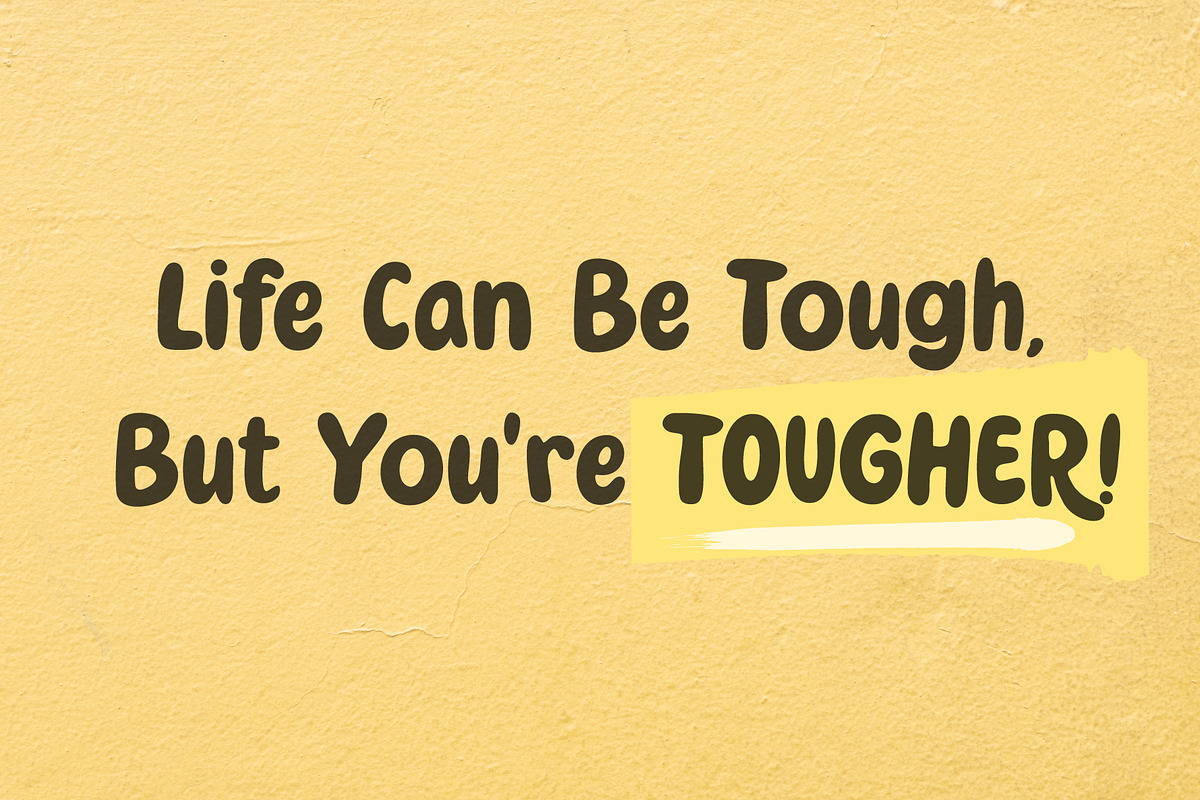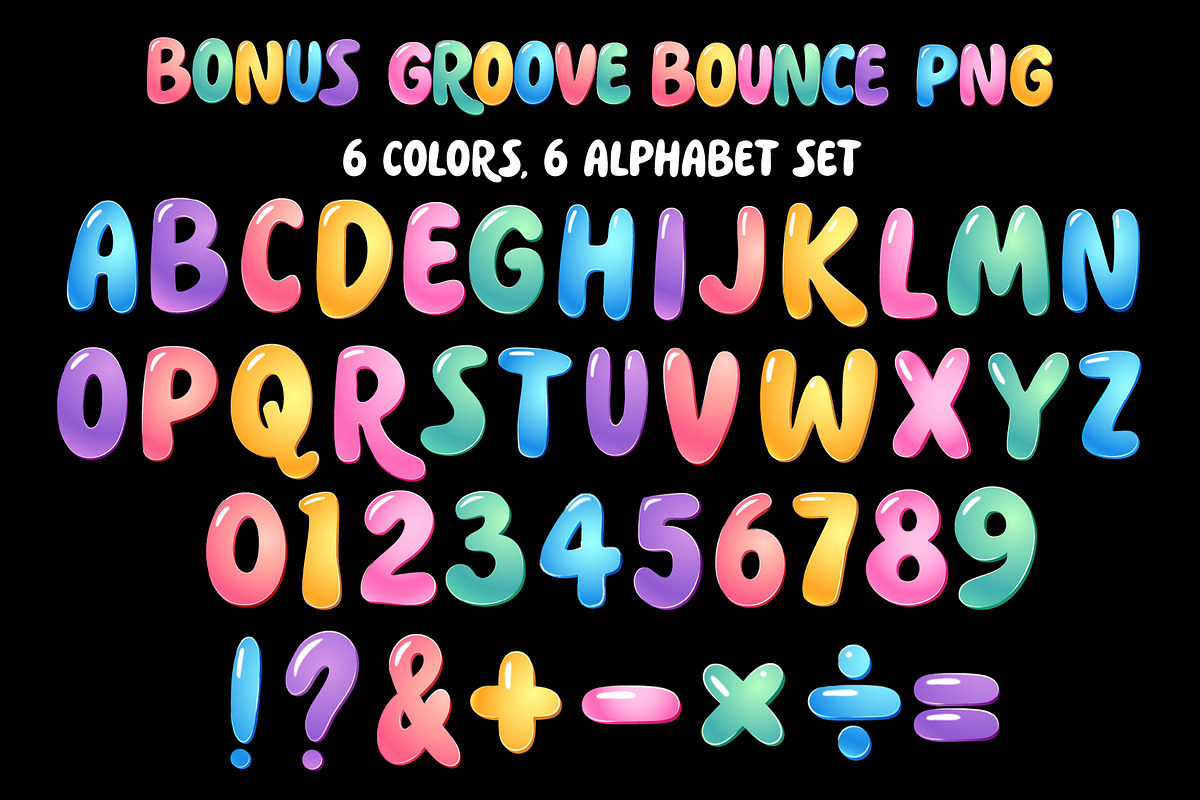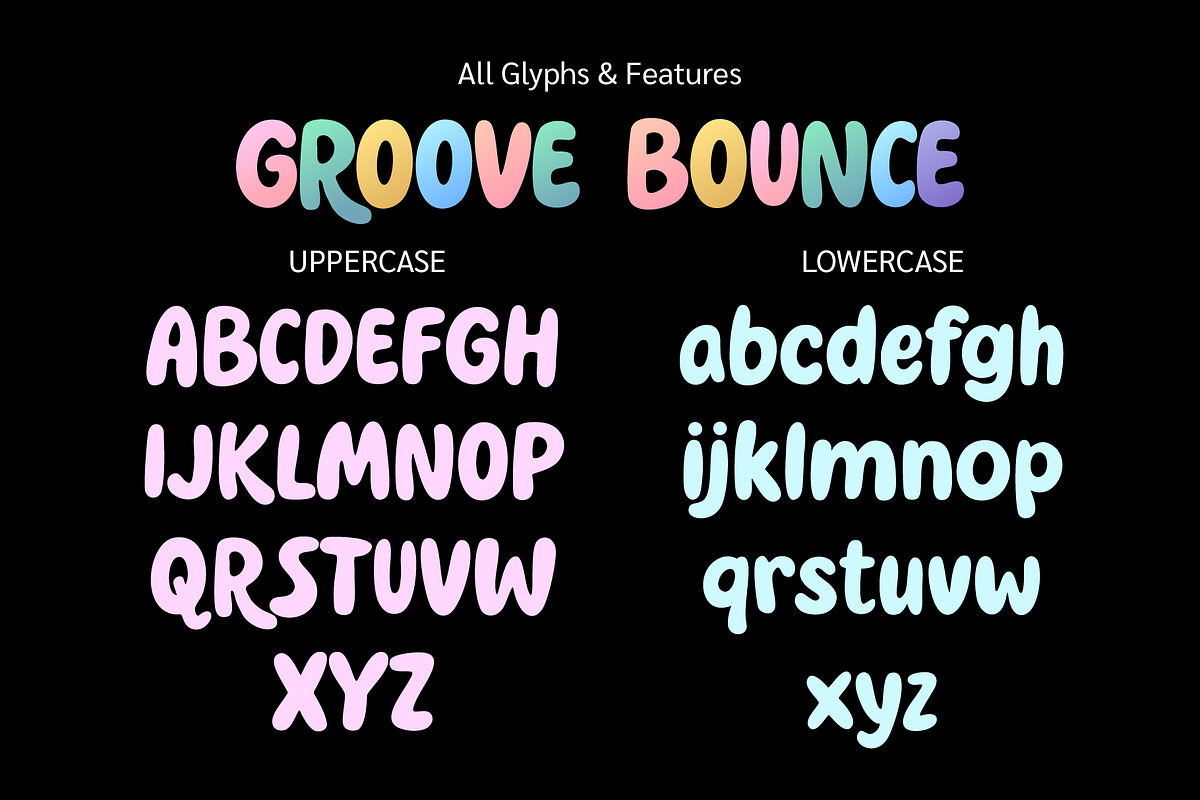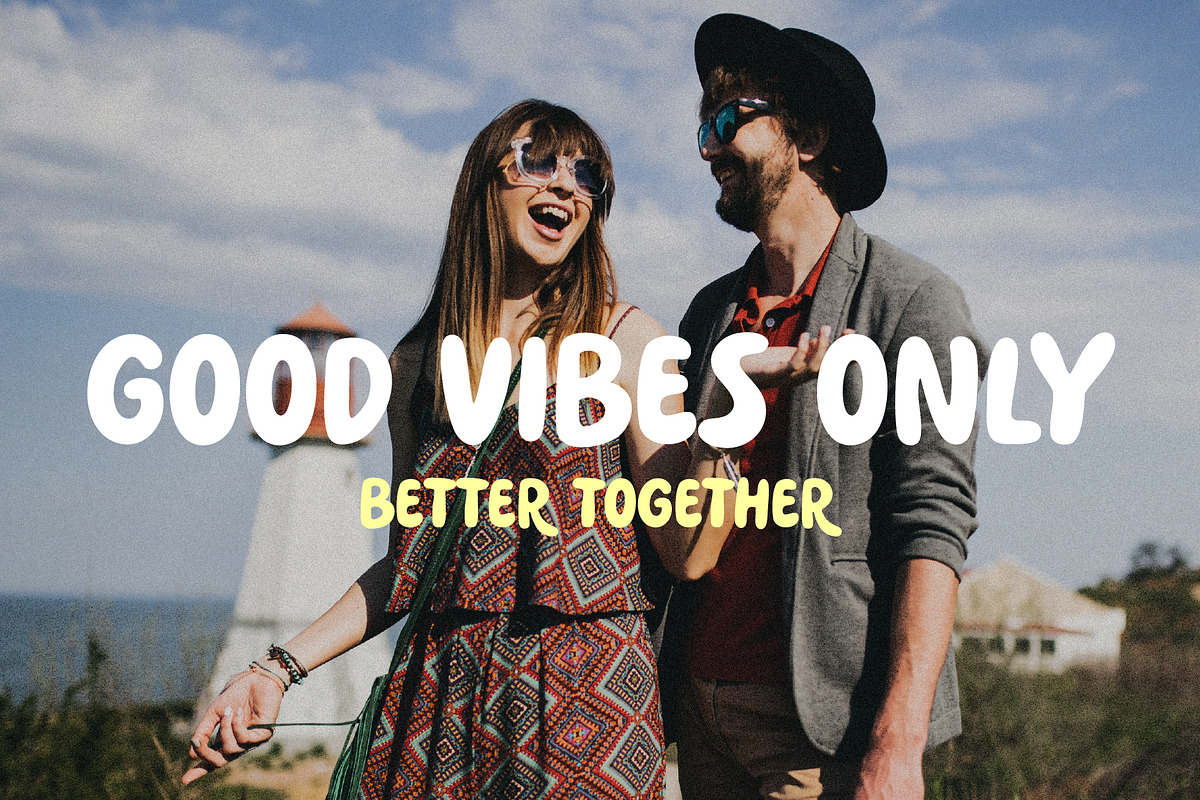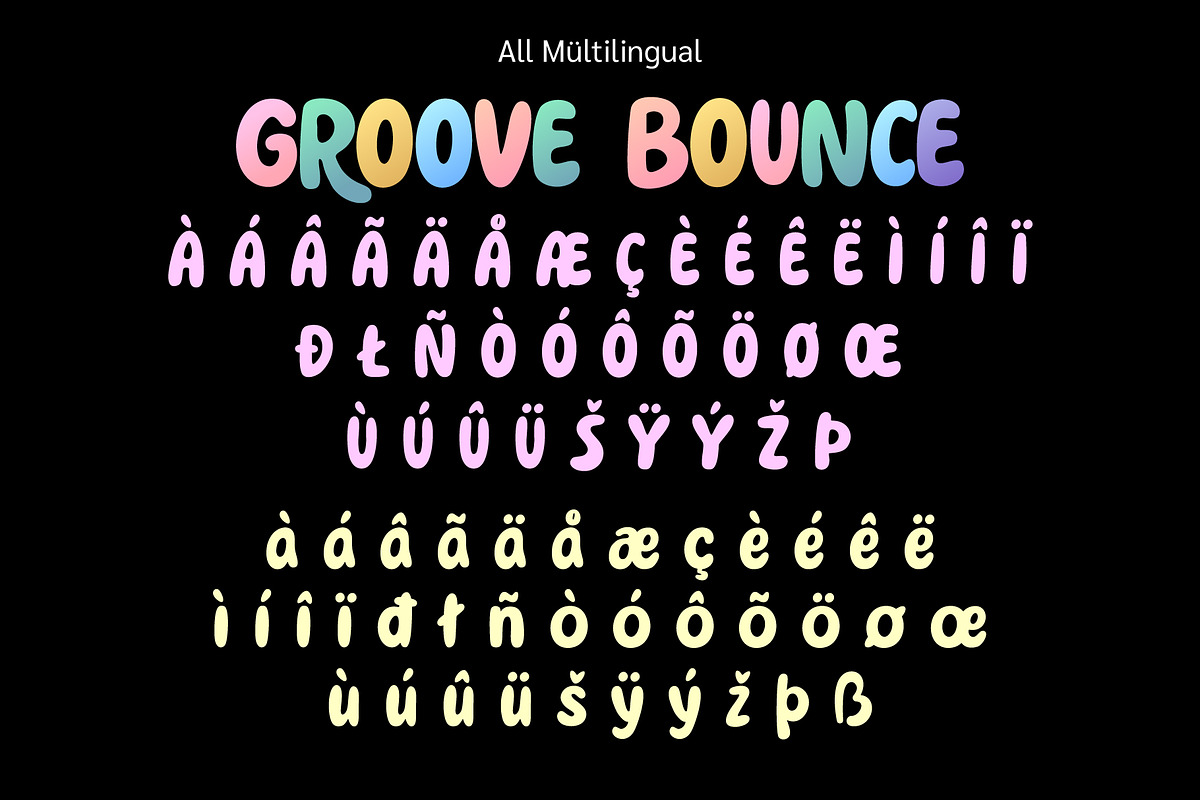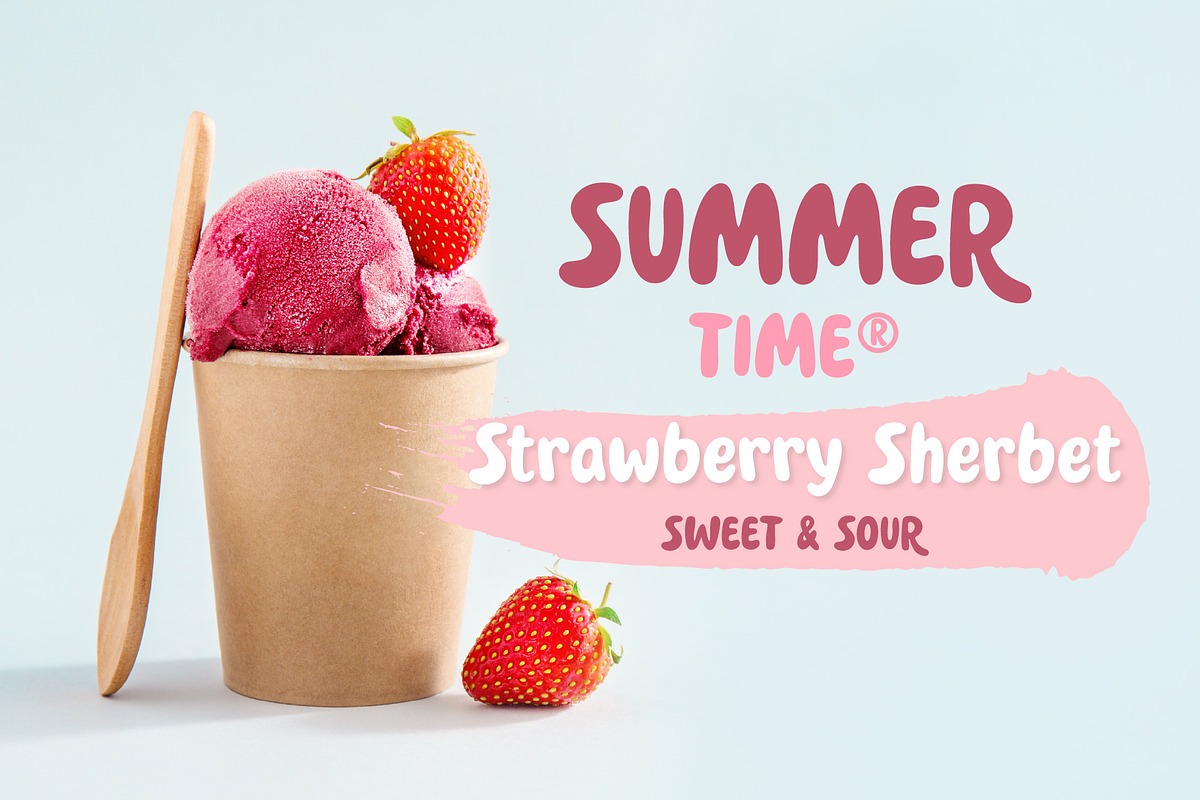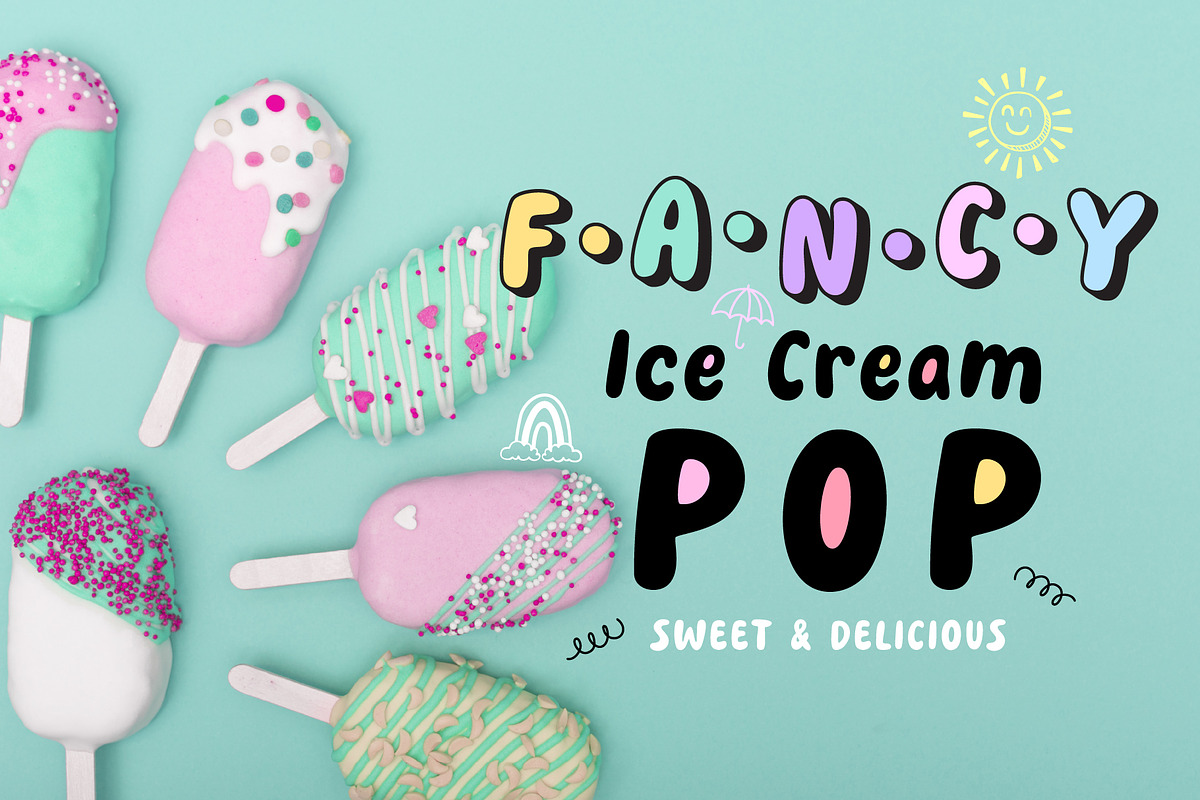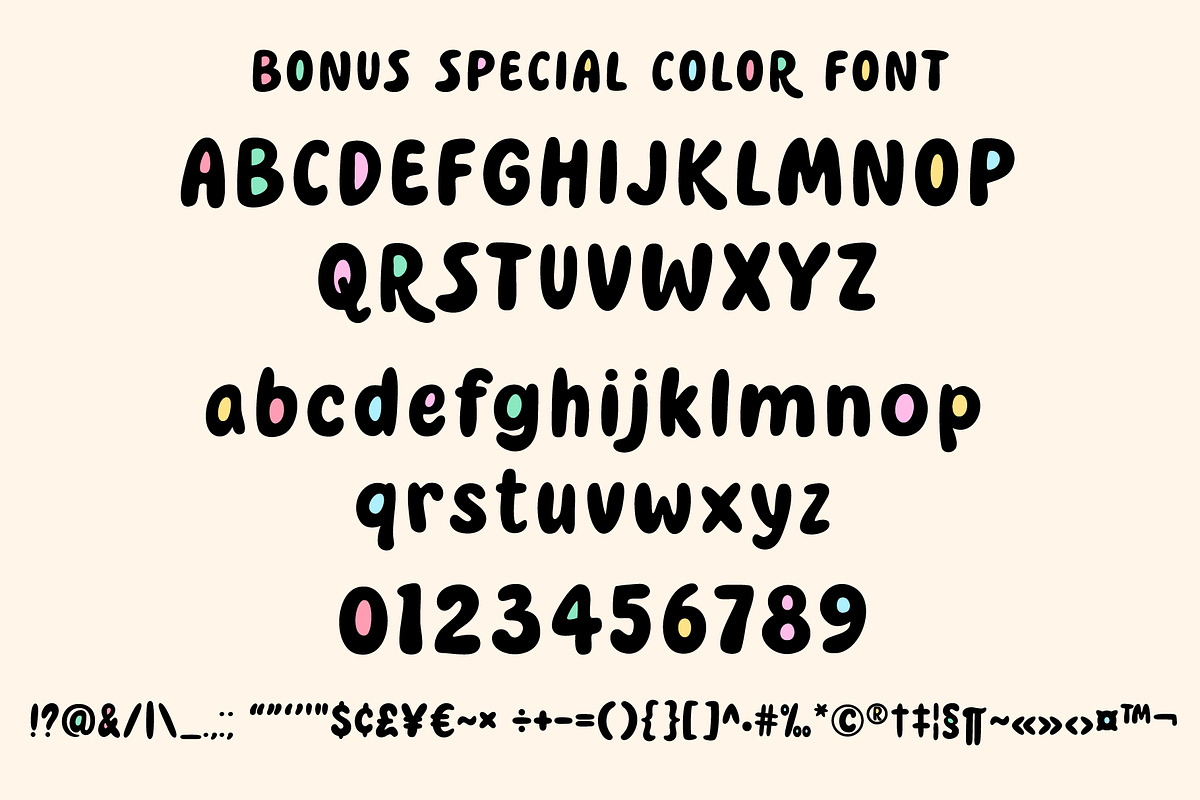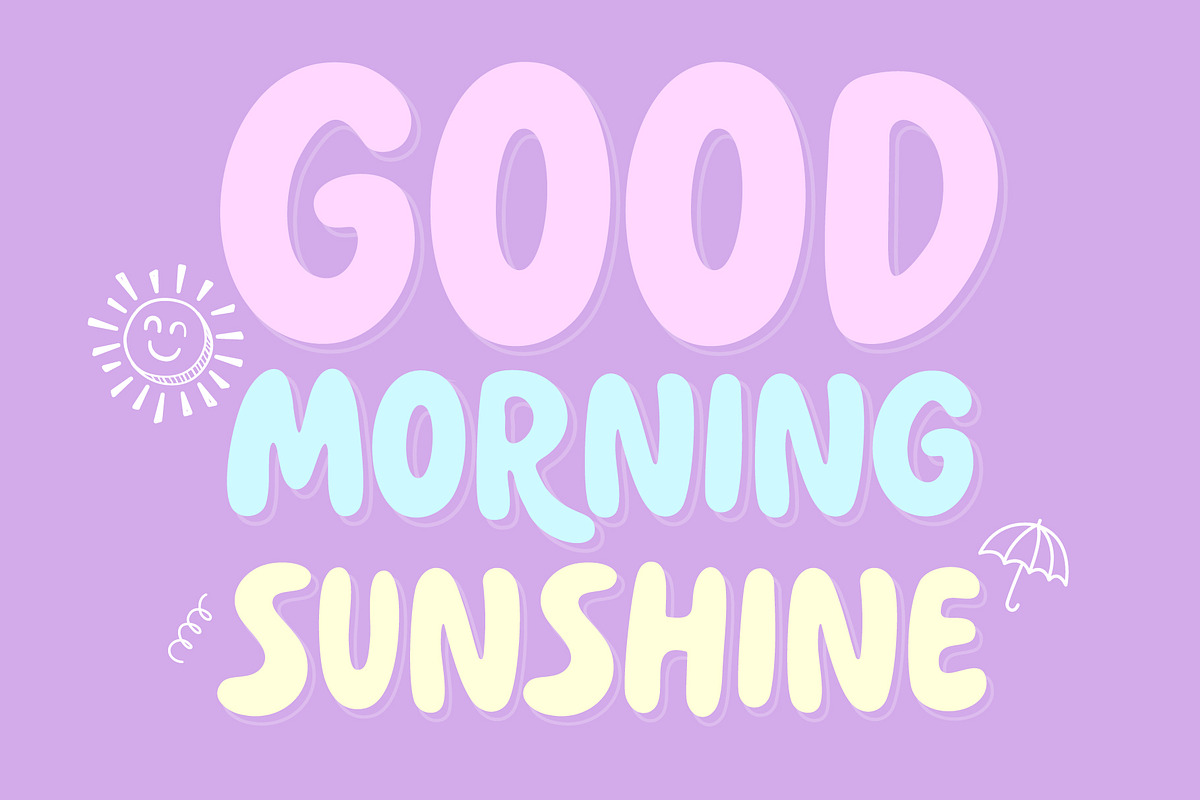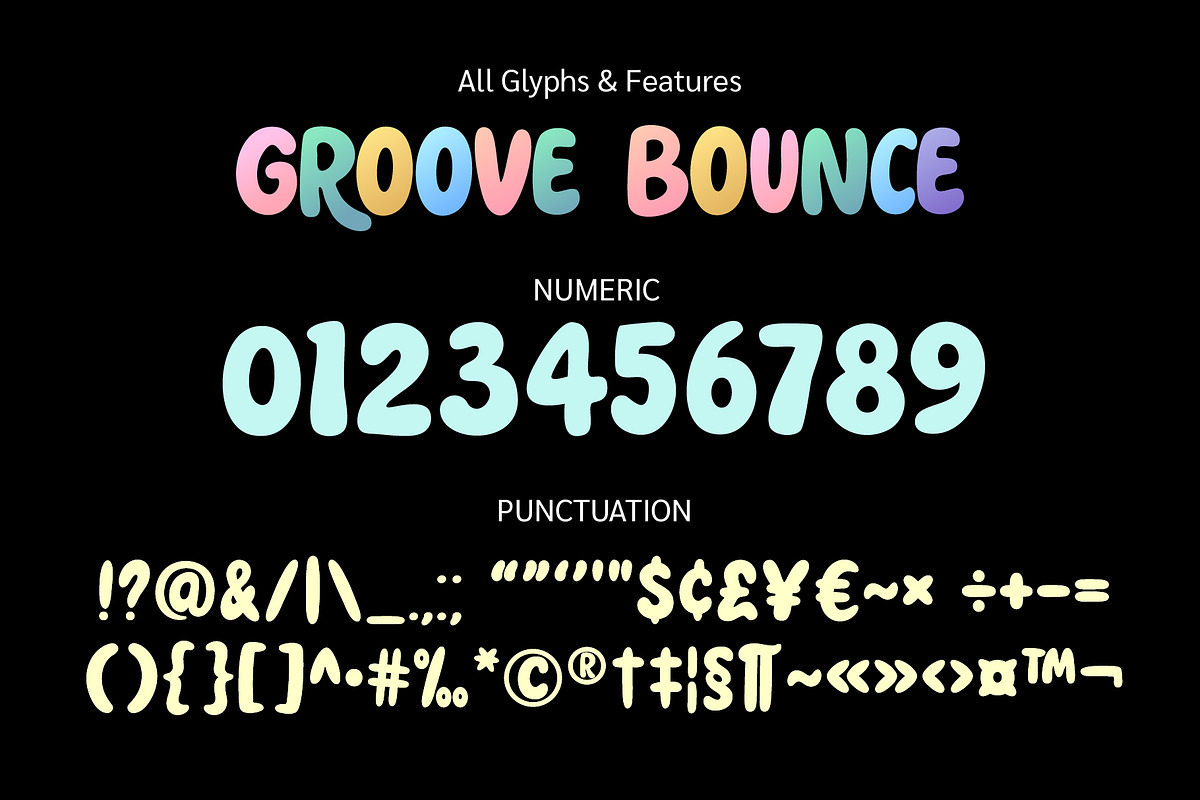
Groove Bounce
Groove Bounce is a bold, playful display typeface packed with groovy energy and glossy charm.
Designed to stand out, this fun-loving font is perfect for eye-catching headlines, kids branding, food packaging, stickers, posters, social media graphics, and more!
With its bouncy letterforms and smooth curves, Groove Bounce instantly adds a cheerful and friendly vibe to any design.
Perfect for: Kids & toy branding Food & beverage packaging Birthday invitations Sticker & merch design T-shirt graphics Instagram & social media posts Posters & fun editorial headlines Printable designs